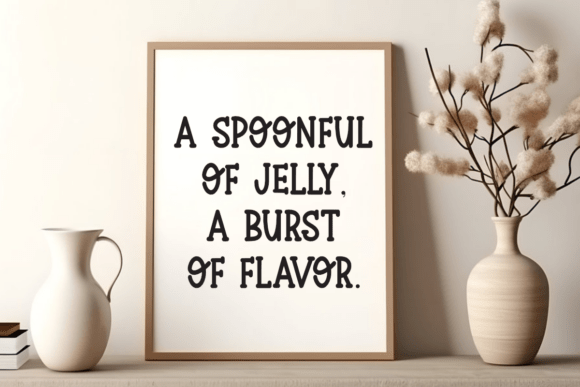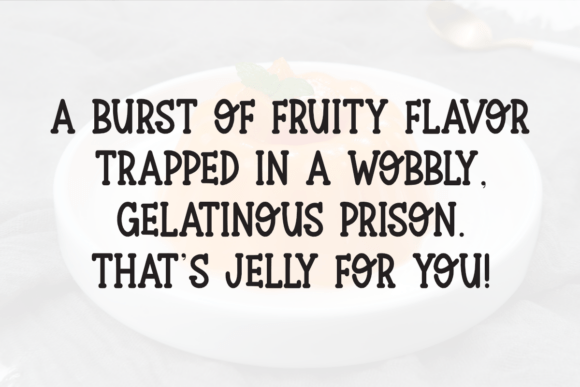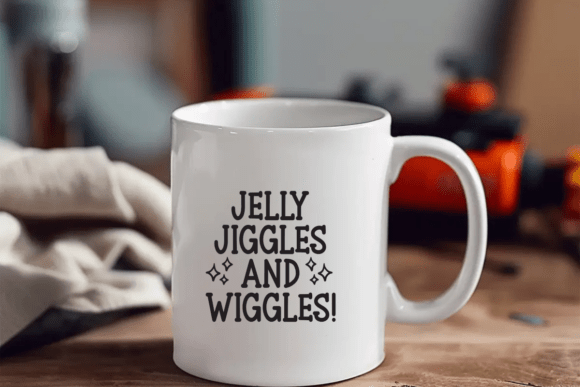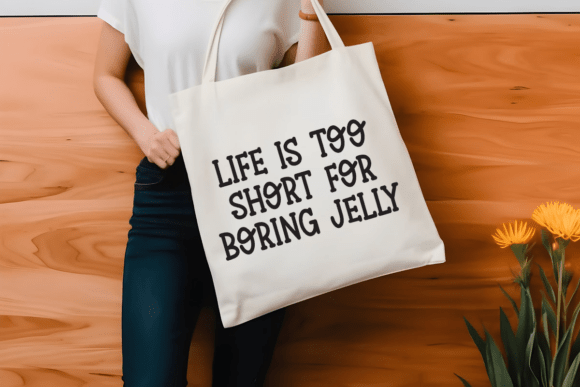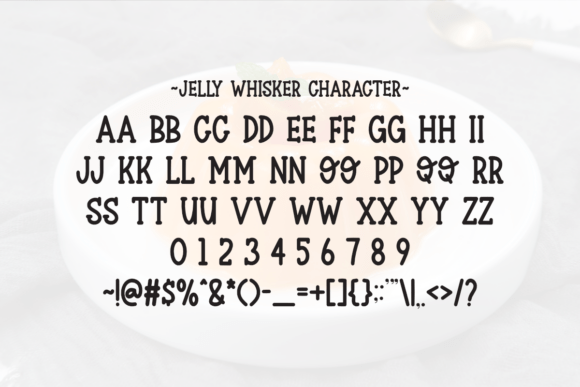
Introduction to Jelly Whisker Font
Jelly Whisker is a playful slab serif font that brings a burst of charm and sweetness to your designs.
With its rounded terminals and candy-inspired character, itโs perfect for childrenโs projects, snack packaging, logos, and any layout that craves a fun, bouncy look This font makes your words feel as soft and delightful as a gummy treat.
Key Features of Jelly Whisker Font